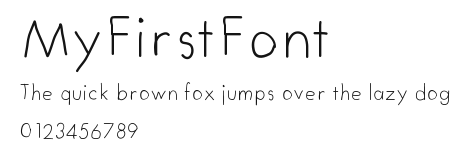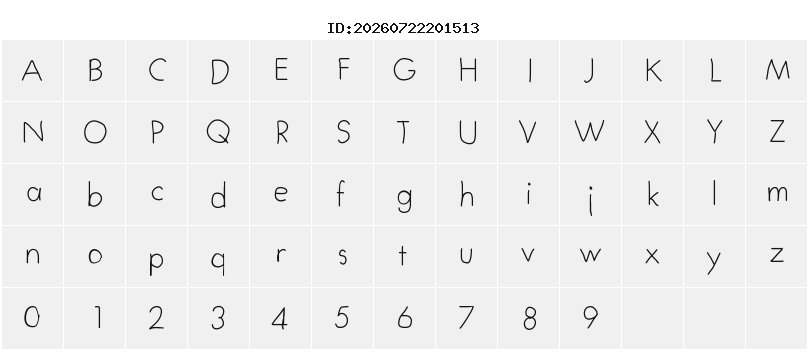
About MyFirstFont.ttf
MyFirstFont.ttf is a modern, elegant sans-serif font designed for ultimate readability and visual harmony. Perfect for branding, headlines, web design, and print materials.